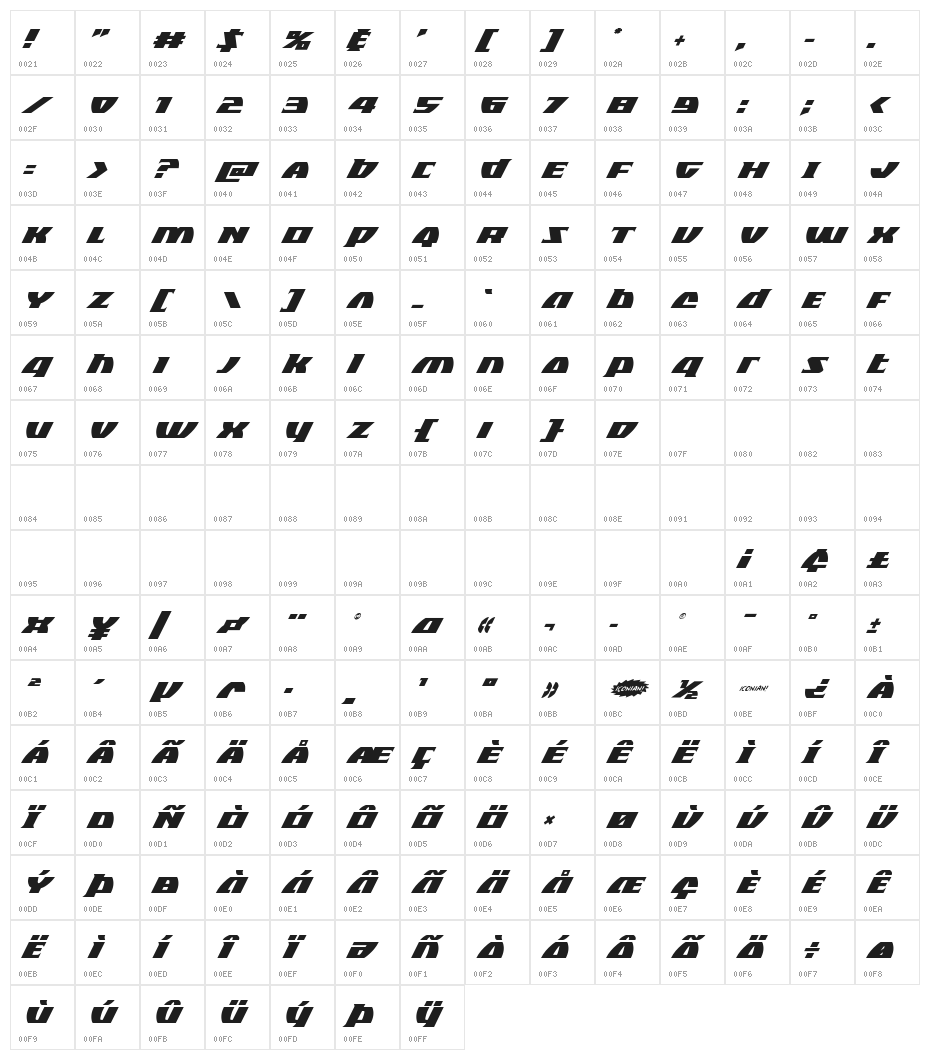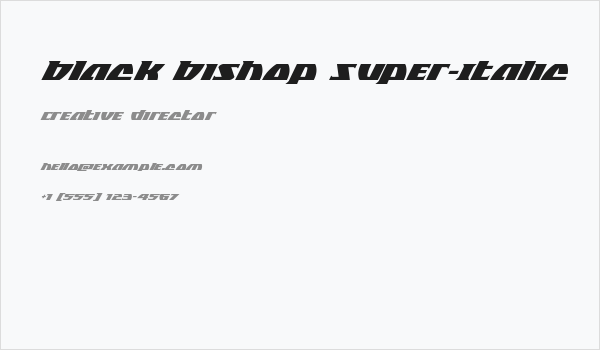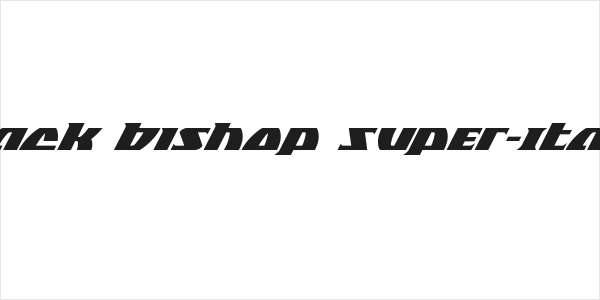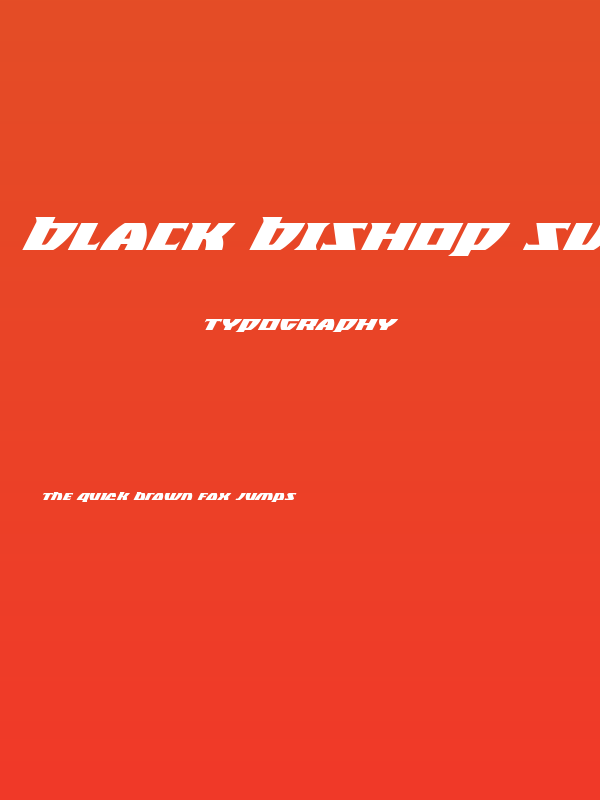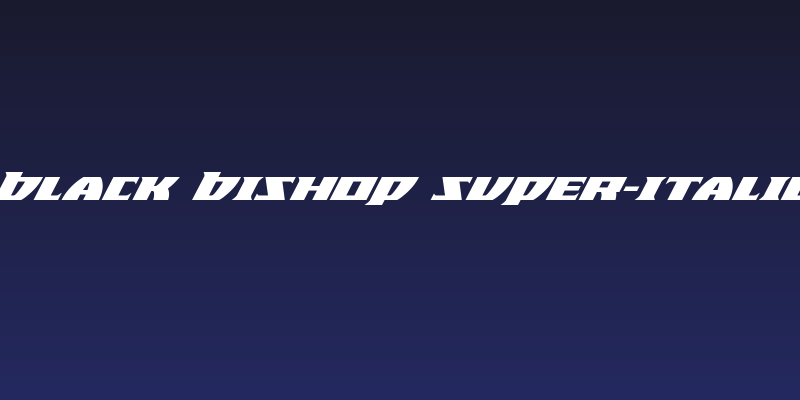
Black Bishop Super-Italic Font
Black Bishop Super-Italic Description
This font exhibits a bold and dynamic style with a strong italic slant, giving it a sense of motion and energy. The characters are thick and robust, featuring sharp angles and a geometric design that enhances its modern and aggressive appearance. The uppercase and lowercase letters maintain a consistent style, with the uppercase being slightly more pronounced. The numbers and special characters follow the same bold and angular design, ensuring uniformity across all glyphs. This font is ideal for projects that require a striking and impactful visual presence.
| Proposed Projects | Ideal for sports branding, action movie posters, video game titles, and dynamic advertising campaigns. |